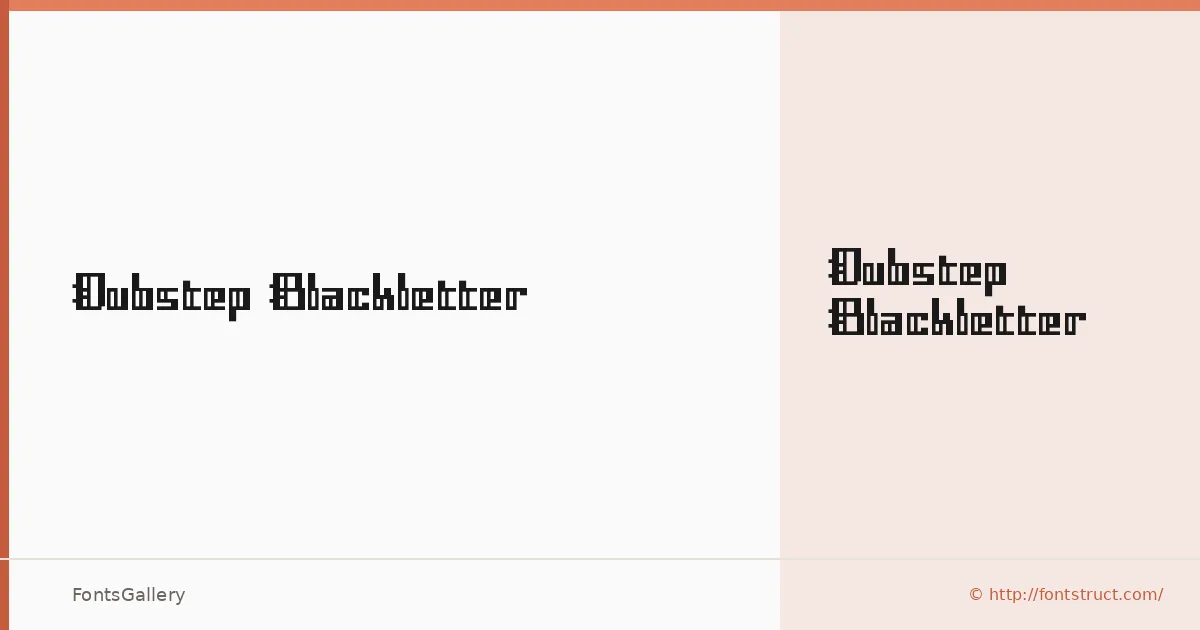
About Dubstep Blackletter Font
There is something immediately confrontational about a well-drawn blackletter — the dense strokes, the fractured counters, the weight that seems to press down on the baseline. This single-cut family comes from GameDevDan under the Chequered Ink banner, and it leans hard into that gothic density while keeping enough structure to stay legible at display sizes. The letterforms carry a grunge edge that reads less like a cathedral manuscript and more like something silkscreened onto a dark background.
The family ships as a single Regular weight, available in OTF and WOFF, which keeps the proposition simple: one strong voice, no hedging across a range of widths or weights. The mood sits squarely in bold, classic blackletter territory with a vintage roughness that tips into grunge without losing legibility at headline scale. Latin coverage is partial, so check the glyph set against any copy that strays beyond standard Western characters before committing.
This is a face built for high-contrast applications — poster headlines, logo lockups, branding that needs an authoritative or countercultural tone, and T-shirt design where the blackletter tradition carries cultural weight. At smaller sizes the forms compress quickly, so keep it large and give it room. For contrast pairings, the clean geometry of Helvetica or Aileron works well against it, while options like AQUA, Abrade, and Aranea offer more expressive alternatives depending on the overall register of the piece.